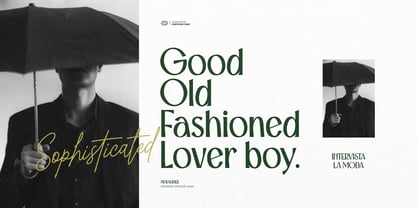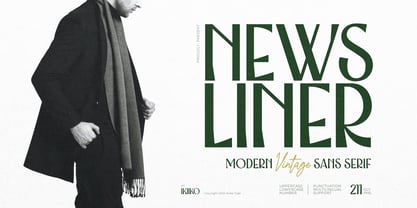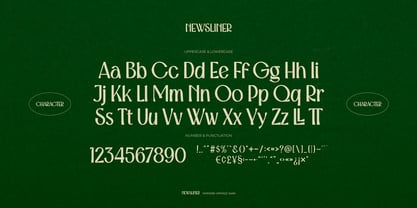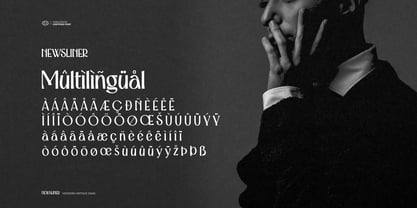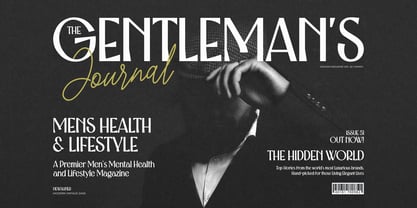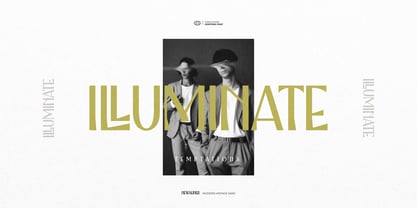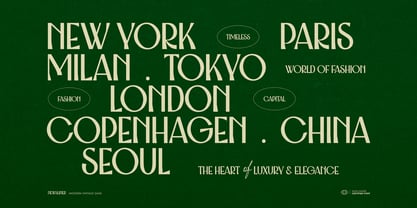
Newsliner
Proudly present Newsliner - Modern Vintage Sans Serif, created by ikiiko.
Newsliner, a Modern Vintage Sans Serif, brings timeless sophistication to your design toolkit. Inspired by the golden era of editorial layouts, this typeface is crafted to evoke the charm of printed newspapers and high-end magazines, while staying fresh and relevant in today’s digital scene.
This typeface is made for designing fashion brands, curating editorial spreads, or crafting bold logotypes. Newsliner delivers the perfect balance of elegant curves and clean structure. It's built for modern branding with a hint of nostalgic flair—ideal for headlines, packaging, and any identity system that needs a confident, classic touch. Sophisticated enough for a fashion house, bold enough for lifestyle media, and versatile enough for minimalist branding.
• Uppercase & Lowercase
• Numbers & Punctuation
• Multilingual Support